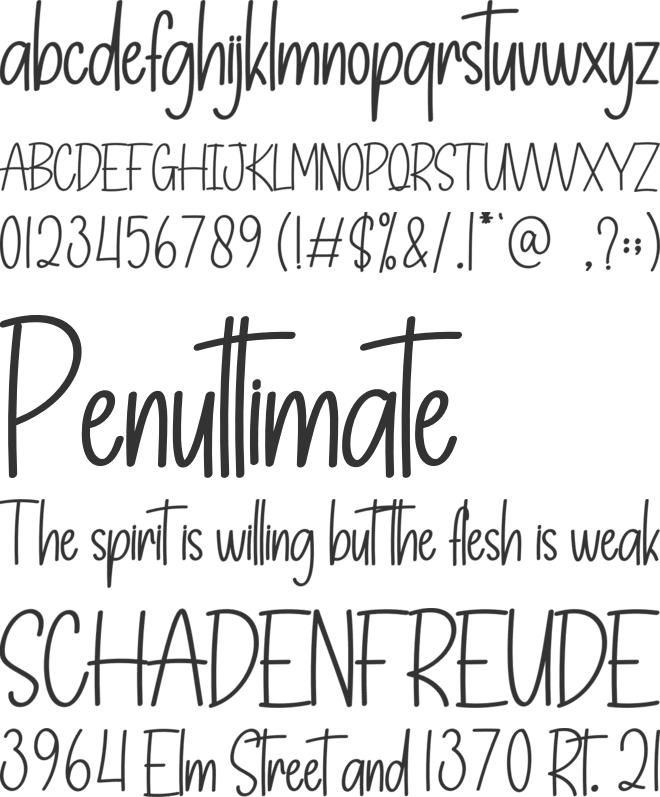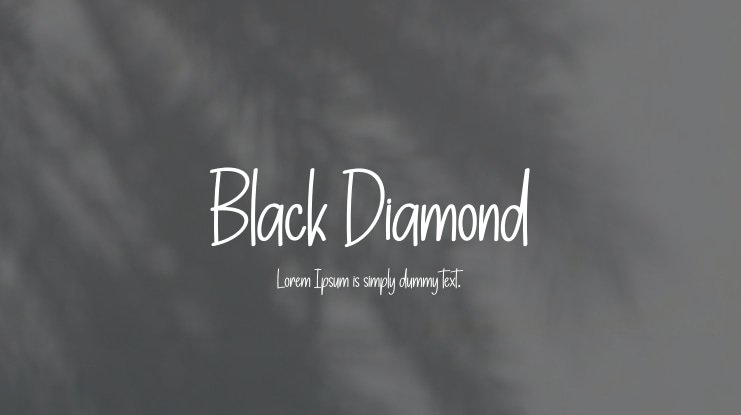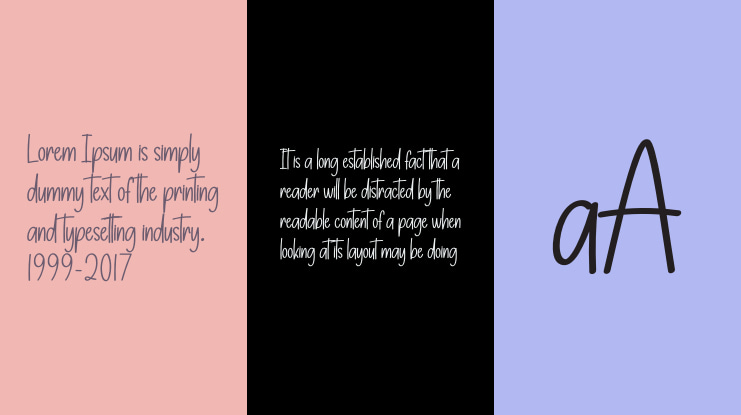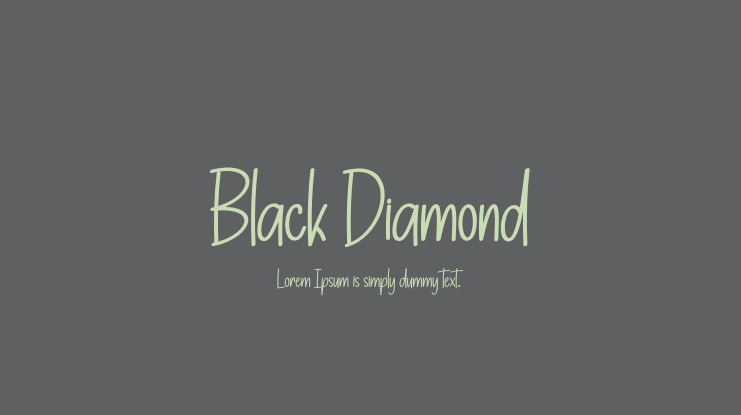
Black Diamond Font
We offer special creative products designed to provide you with an extraordinary experience. Our latest style letters are perfect for a variety of uses including wall displays, wedding invitations, social media logos, advertisements, product packaging, design, labeling, photography, watermarks, invitations, stationery, and any project that requires stylish handwriting.